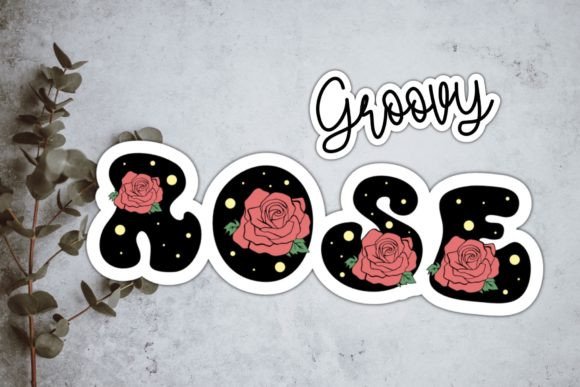
Looking for the perfect decorative font for your next creative project? Look no further than Groovy Rose Font, the Best Font for Logo Design 2014, created by the talented team at 18CC FONTs.
With its playful and charming design, Groovy Rose is the ultimate choice for anyone looking to add a touch of sweetness and fun to their branding, social media posts, DIY projects, and more. Its unique curves and delicate strokes give it a feminine and romantic feel, making it ideal for businesses and individuals alike who want to convey a sense of warmth and approachability to their audience.
But don't let its delicate appearance fool you - Groovy Rose is also incredibly versatile and can be used for a wide range of applications. Whether you're designing a wedding invitation, crafting a handmade gift, or creating a stunning logo for your business, Groovy Rose has the power to elevate your project and bring it to life.